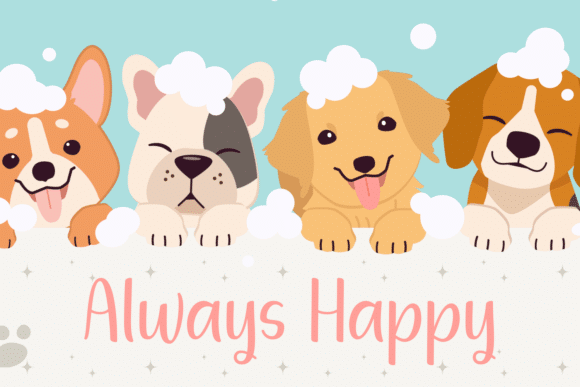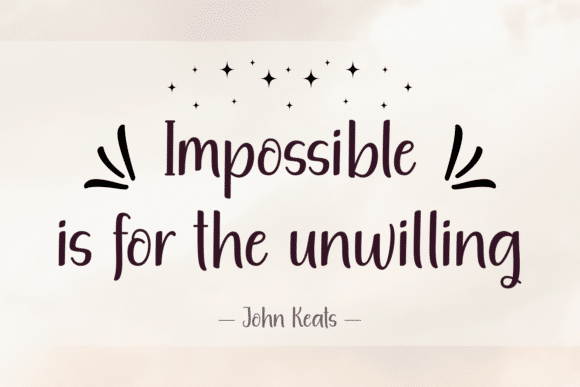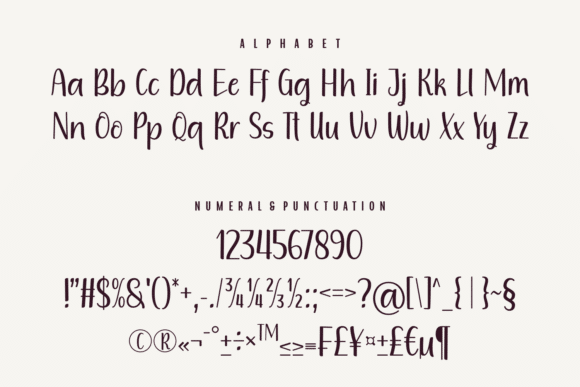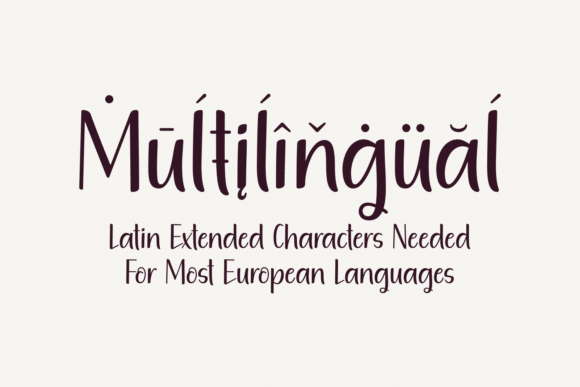
Amazing Quirky Font
Amazing Quirky is a fun and playful handwritten font. It looks lovely on a variety of design ideas that require a trendy touch. Whatever the topic, Amazing Quirky will be a wonderful asset to your font library, as it has the potential to enhance any creation.